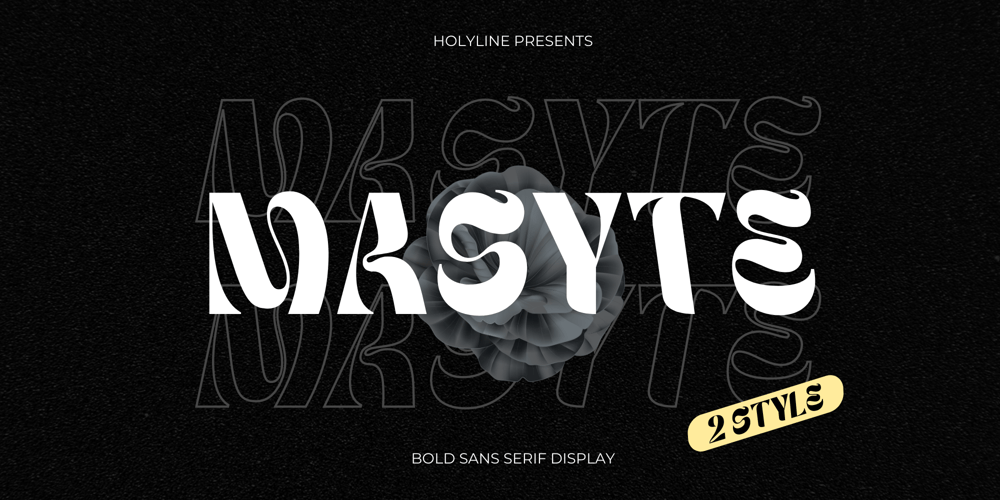
Masyte Font Family was designed by Bagus Beratha Wijaya and published by holyline design. Masyte contains 2 styles and family package options. MASYTE by Holyline is a sans serif display typeface with reguler and italic style . It’s very bold and fun with a unique shape. Perfect for headline, custom logo, or anything for your creativity and MASYTE is perfect typeface if you want something new with your project. Happy creating!